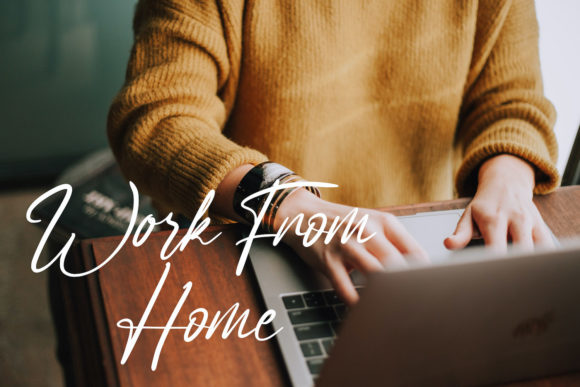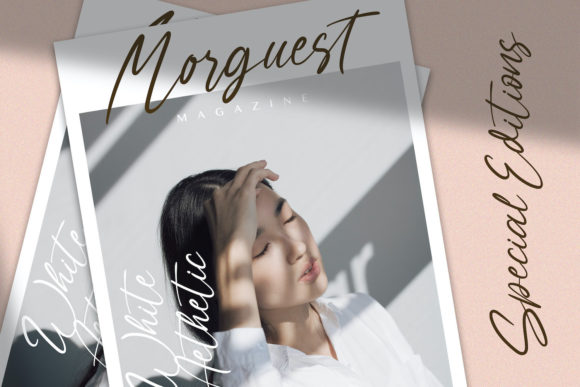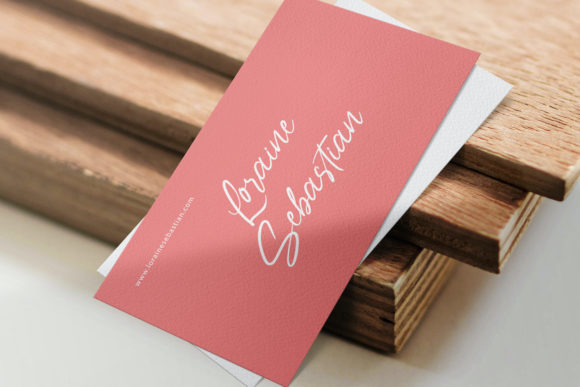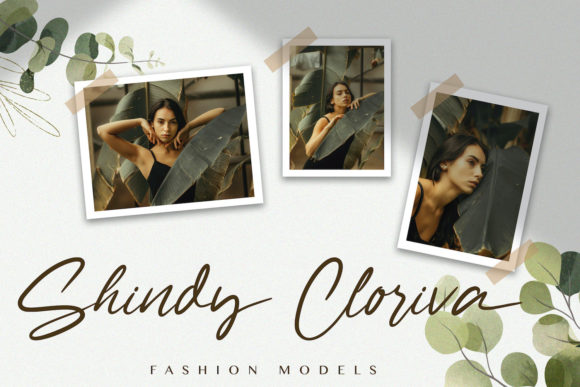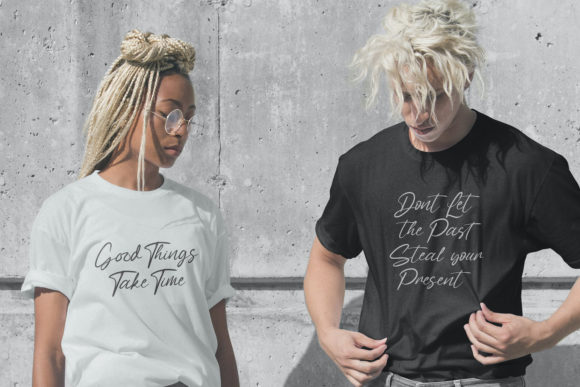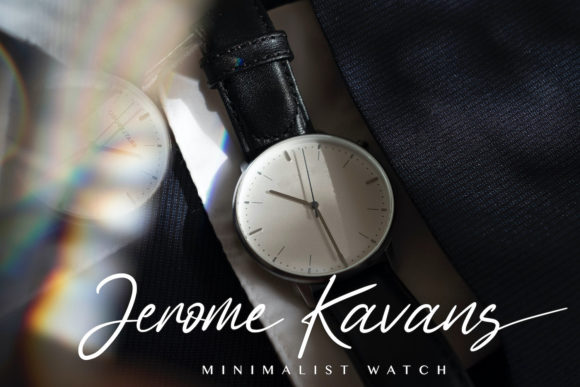
Introduction to Sabeny Betranss Font
Sabeny Betranss is a delicate, elegant and flowing handwritten font.
It has beautiful and well balanced characters and as a result, it matches a wide pool of designs Add it to your most creative ideas and notice how it makes them come alive.
Key Features of Sabeny Betranss Font
Why Choose Sabeny Betranss Font?